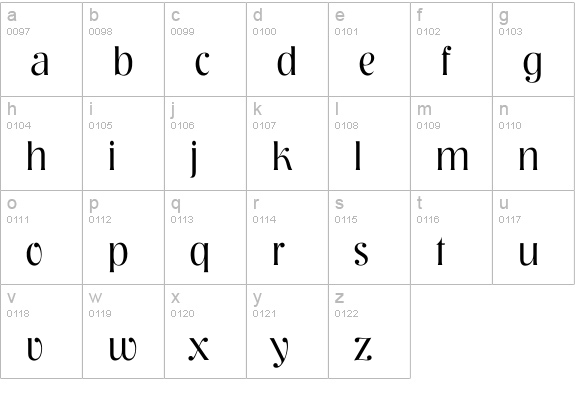
Nashvi Light is a refined, elegant variant in the Nashvi typeface family \xE2\x80\x94 well suited to elegant body text, refined sub-headings, and luxury branding.
Nashvi Light font is a contemporary and elegant typeface that exudes sophistication and style. With its sleek lines and modern design, this font is perfect for a wide range of projects, from branding to editorial design. The light weight of Nashvi adds a touch of grace and delicacy to any text, making it ideal for creating a refined and polished look. The best part about Nashvi Light font is that it is completely free to download at FontsMarket.com. This means you can easily access this high-quality font without any cost, allowing you to elevate your designs without breaking the bank. Whether you're working on a personal project or a professional assignment, Nashvi Light font is a versatile and stylish choice that will surely impress.